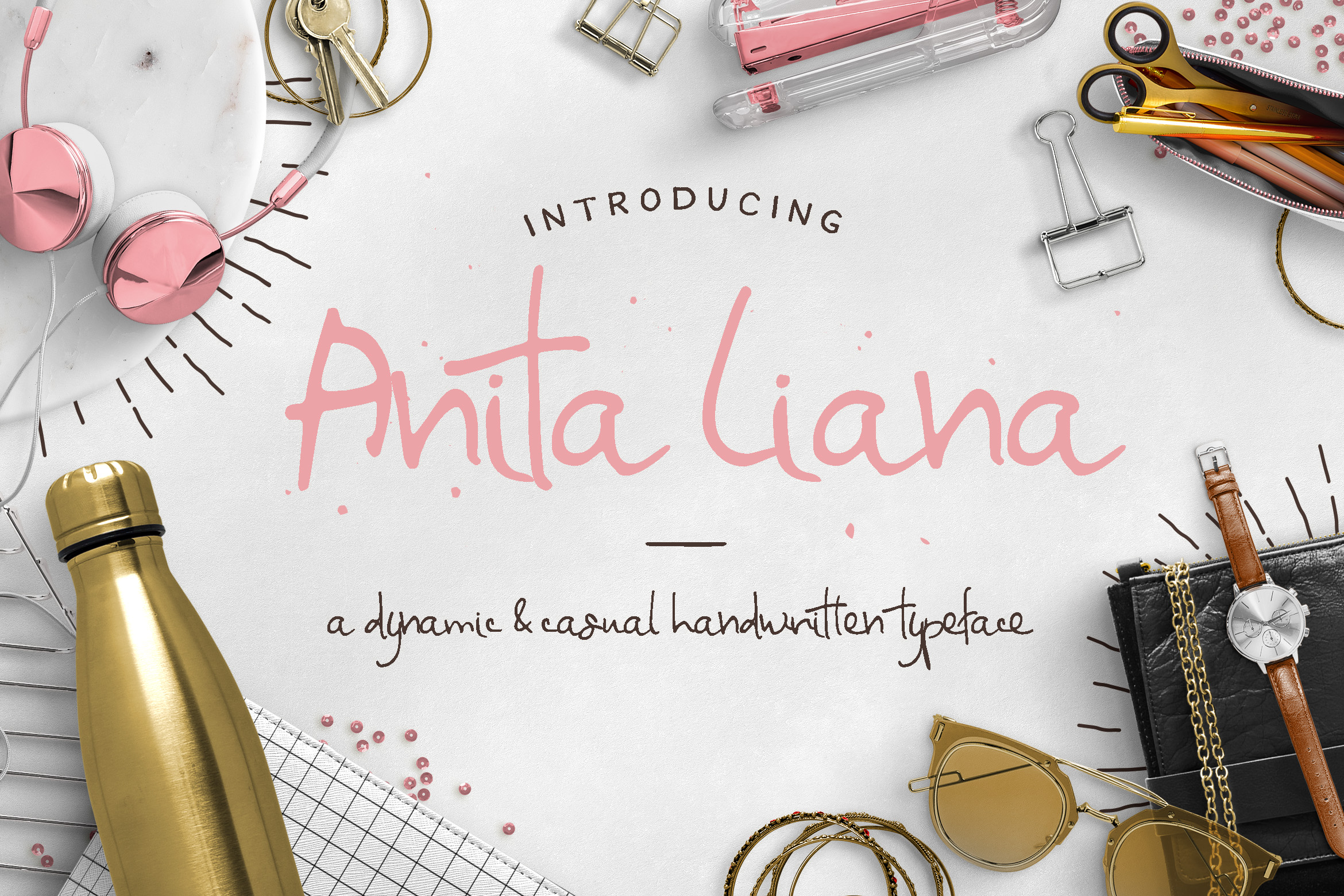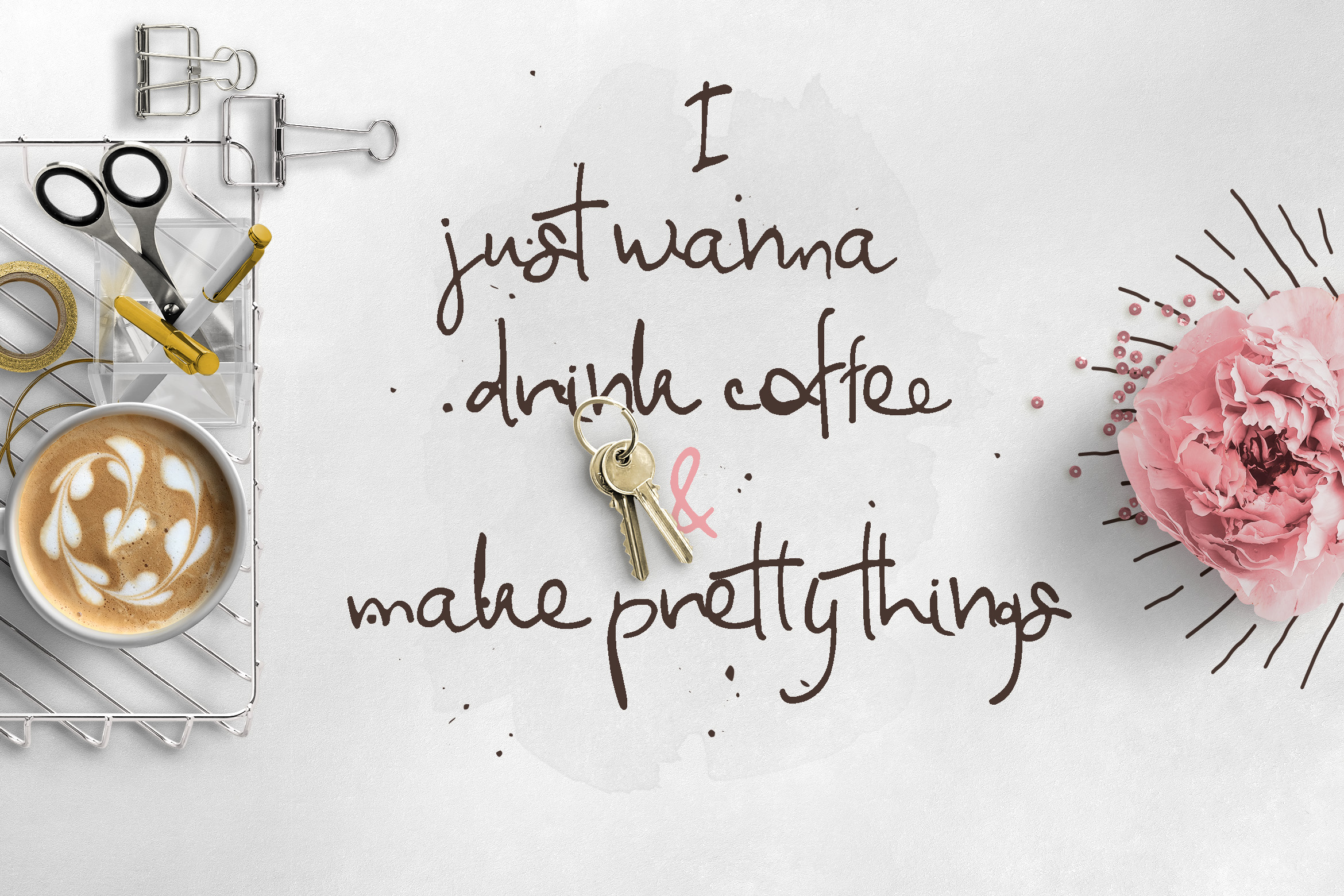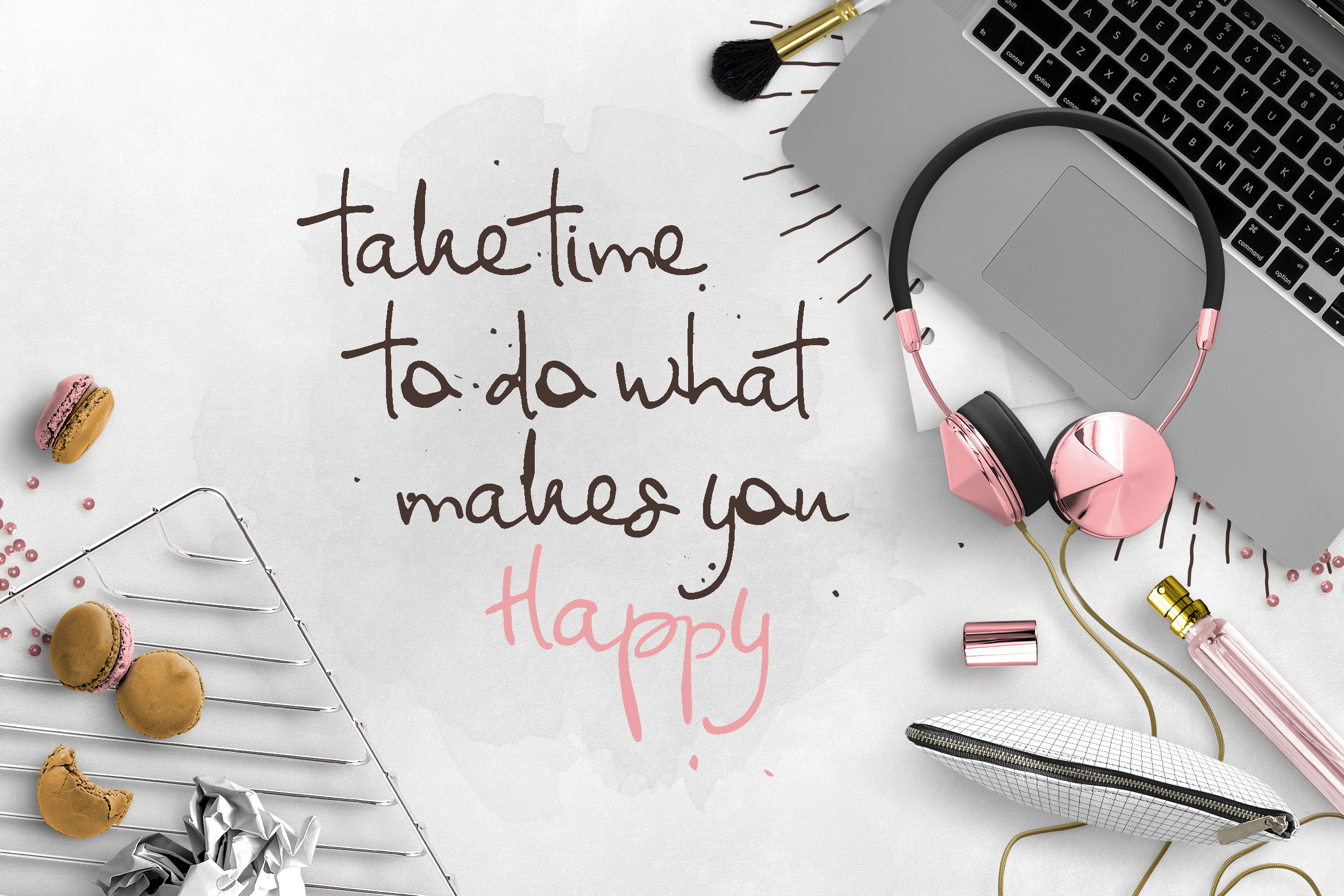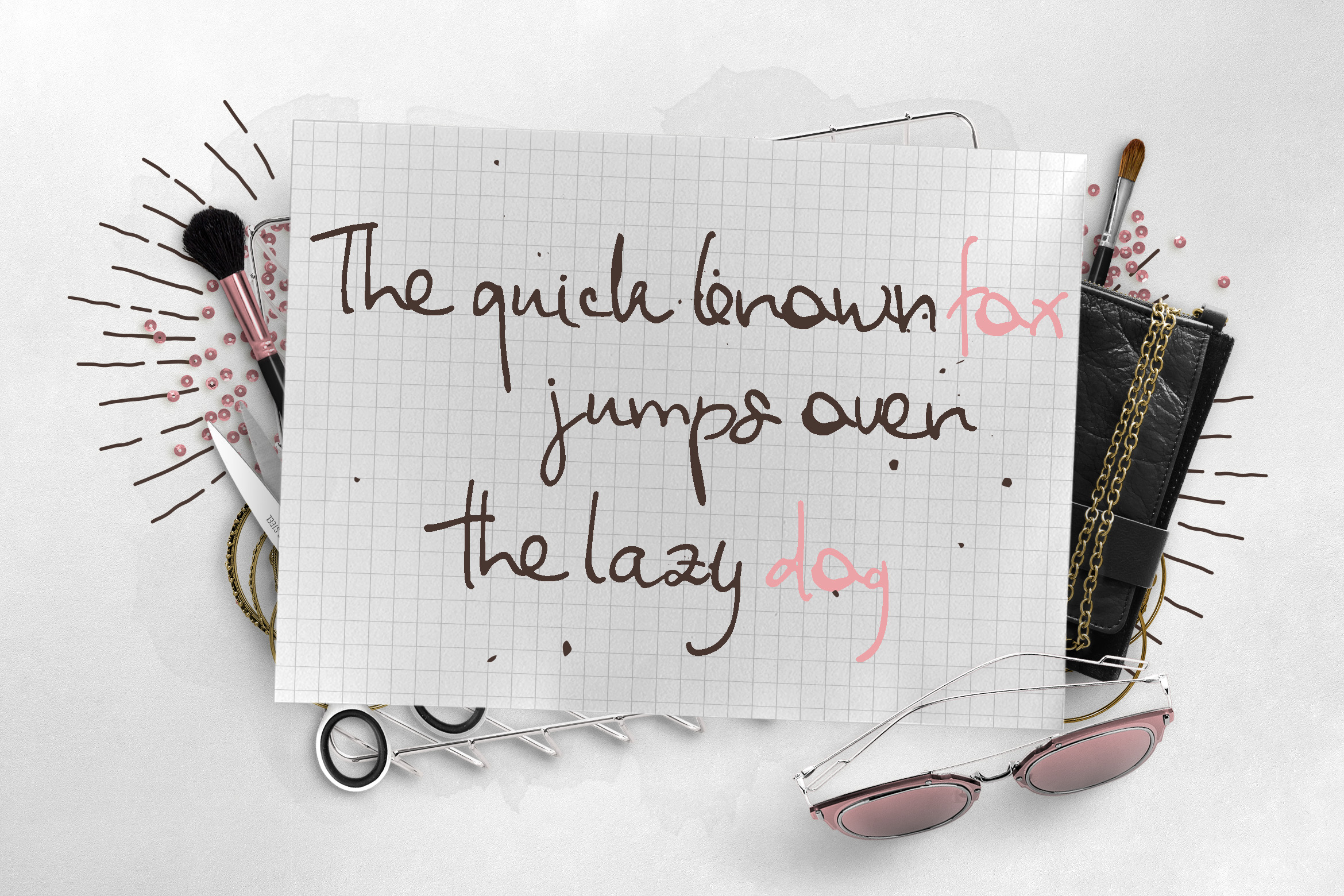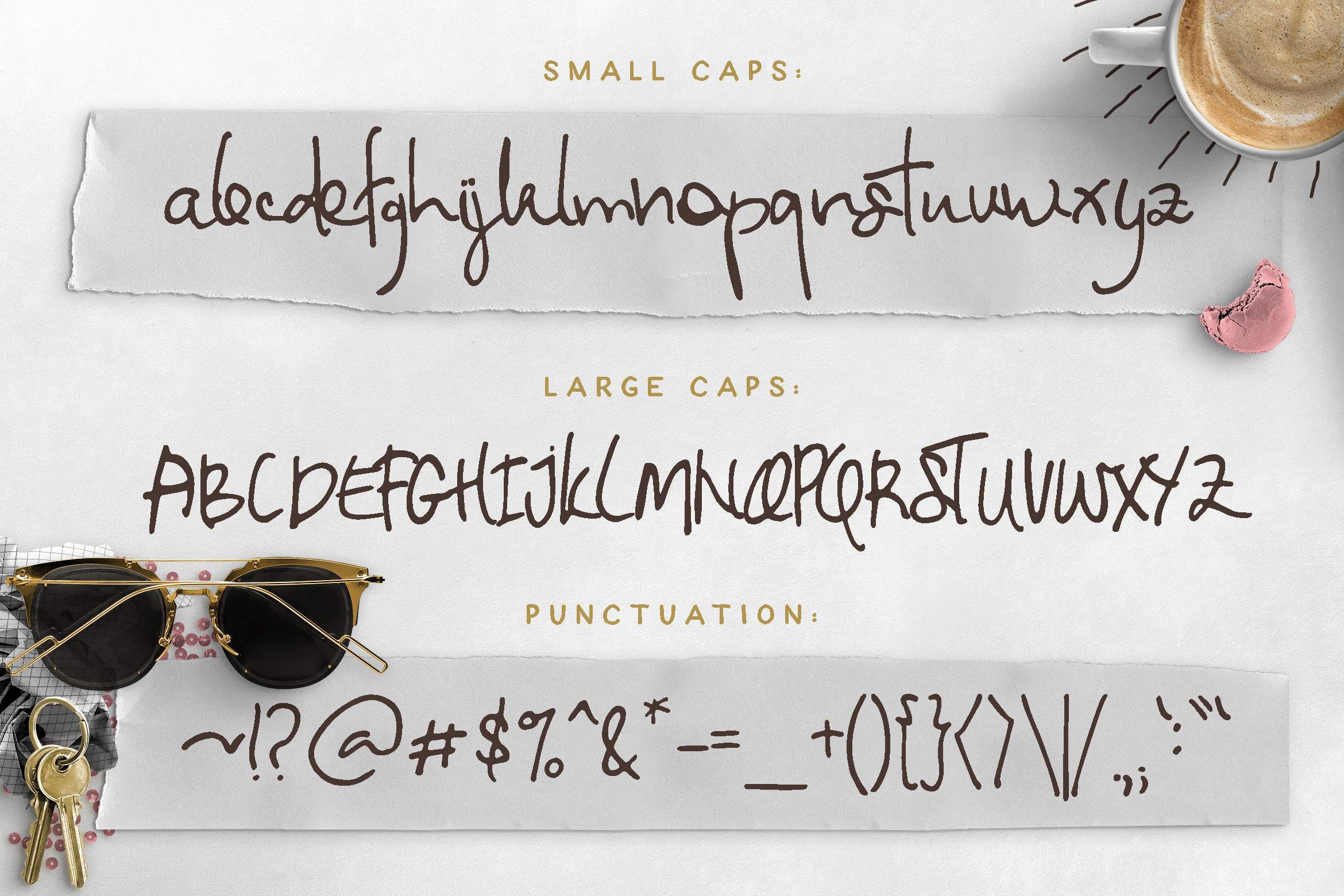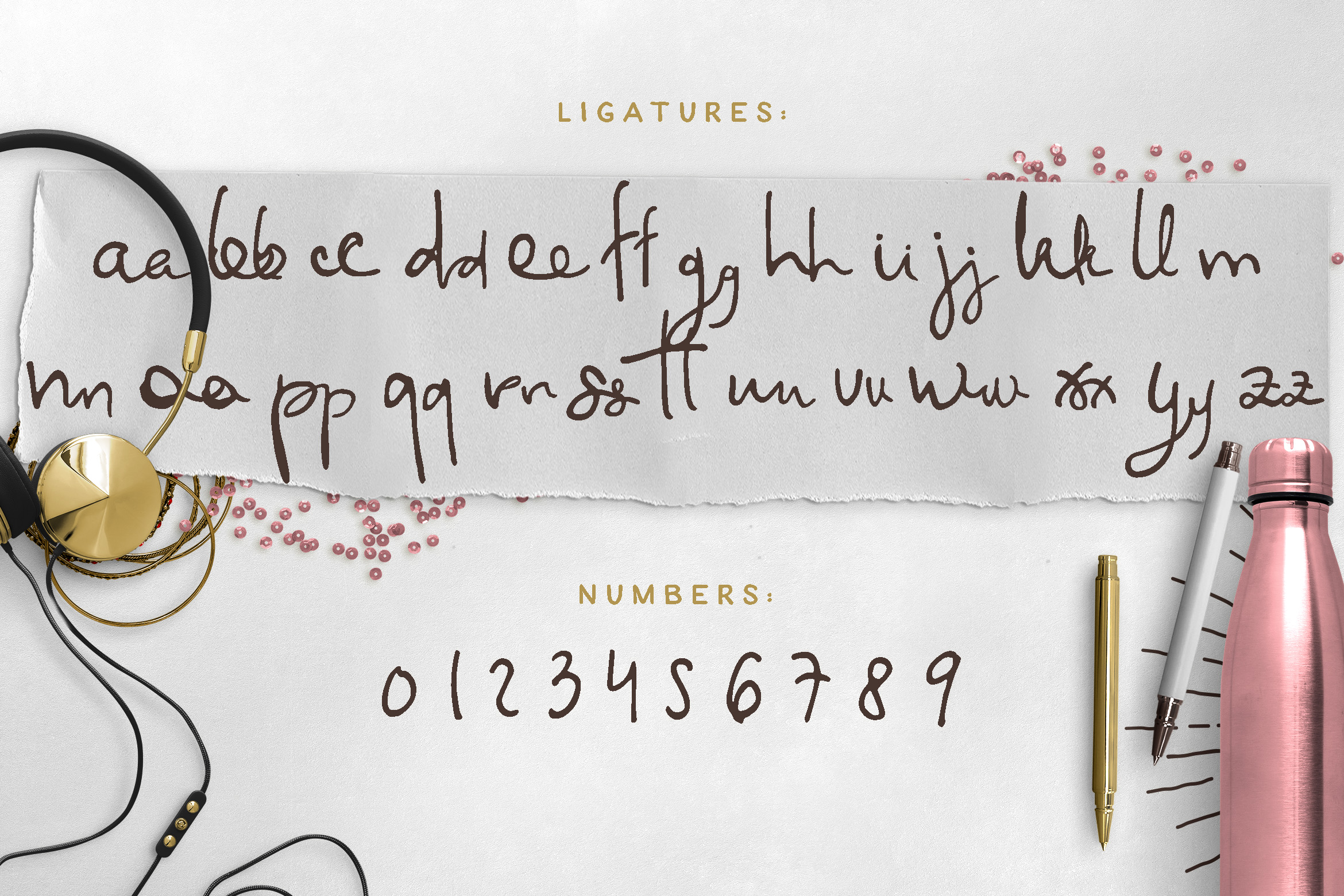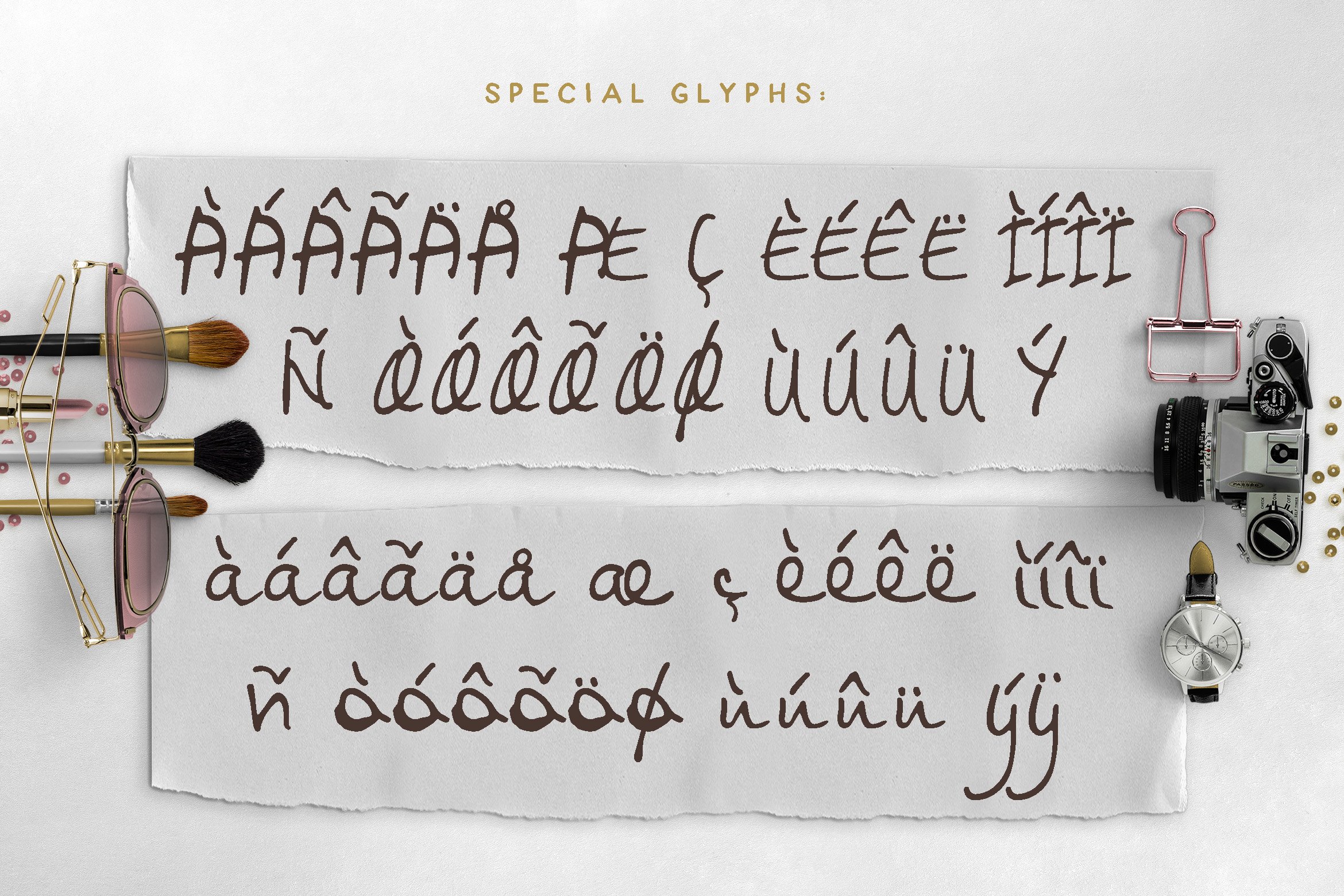
Anita Liana Font
About Anita Liana Font
Anita Liana is a casual handwritten typeface that can easily be used for multiple purposes: blogs, logos, titles, posters, wedding cards & much more, you decide!
Anita Liana comes with accented glyphs for international language (check preview images or the specimen file to see which glyphs are included).